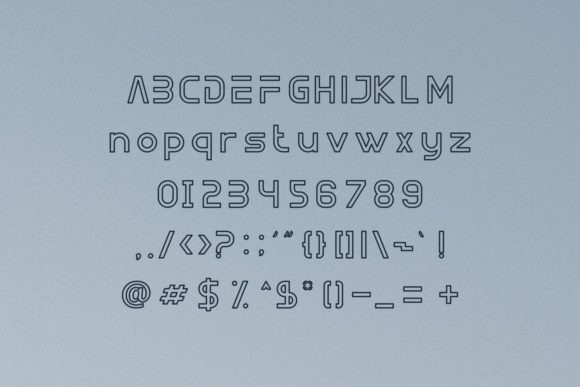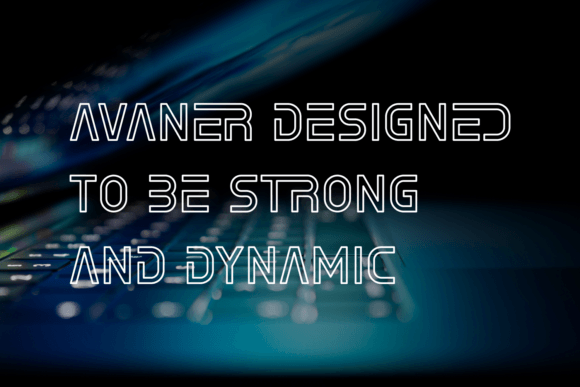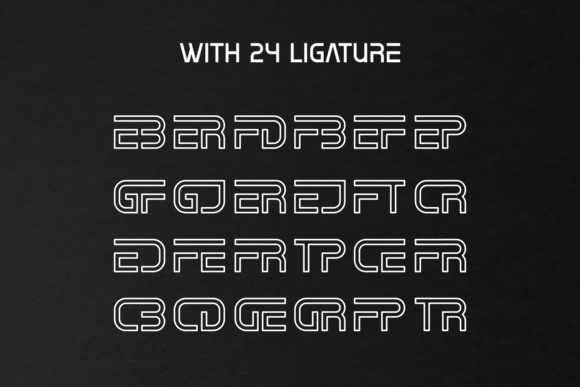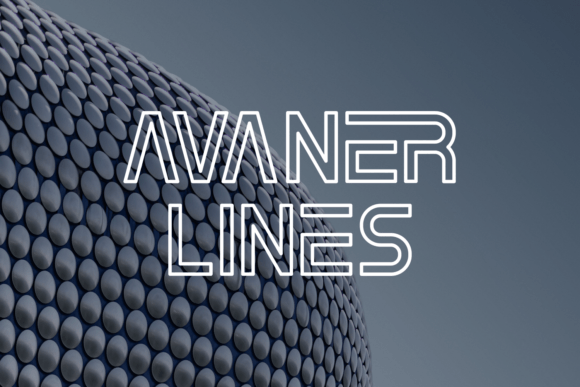
Avaner Lines Font: Elevate Your Designs with a Strong and Dynamic Display Font
In the world of typography, fonts play a crucial role in conveying messages, expressing emotions, and creating visual identities. For designers and crafters, having access to a diverse library of high-quality fonts is essential to bring their creative visions to life. One such font that has been making waves in the design community is Avaner Lines, a strong and dynamic display font that has the potential to elevate any creation.
What is Avaner Lines Font?
Avaner Lines is a modern, sans-serif display font designed to make a statement. Its unique blend of geometric shapes and bold lines creates a striking visual effect that grabs attention. The font’s clean and minimalist aesthetic makes it versatile and suitable for a wide range of applications, from branding and advertising to packaging and digital media.
Key Features of Avaner Lines Font
- Strong and Dynamic: Avaner Lines is a font that exudes confidence and energy. Its bold lines and geometric shapes create a sense of movement and dynamism, making it perfect for headlines, titles, and promotional materials.
- Versatile: The font’s clean and minimalist design makes it easy to pair with other fonts, allowing designers to create harmonious and visually appealing combinations.
- Legible: Despite its bold and dynamic nature, Avaner Lines remains highly legible, even at smaller sizes, making it suitable for use in a variety of contexts.
- Editable: As a digital font, Avaner Lines can be easily edited and customized to suit specific design needs, allowing for endless creative possibilities.
How to Use Avaner Lines Font
Avaner Lines is an incredibly versatile font that can be used in a variety of design projects. Here are some ideas to get you started:
- Branding and Logo Design: Use Avaner Lines to create bold and memorable logos that make a lasting impression.
- Advertising and Marketing: The font’s dynamic and attention-grabbing nature makes it perfect for headlines, titles, and promotional materials.
- Packaging Design: Add a touch of modernity and sophistication to your packaging designs with Avaner Lines.
- Digital Media: Use the font to create engaging and visually appealing social media graphics, blog posts, and website headers.
Benefits of Using Avaner Lines Font
By incorporating Avaner Lines into your font library, you’ll enjoy a range of benefits, including:
- Increased Creative Possibilities: With Avaner Lines, you’ll have access to a versatile and dynamic font that can be used in a variety of design projects.
- Improved Brand Consistency: Use Avaner Lines across multiple design projects to create a cohesive and recognizable brand identity.
- Enhanced Visual Appeal: The font’s bold and dynamic nature will add a touch of sophistication and modernity to your designs.
Avaner Lines is a strong and dynamic display font that has the potential to elevate any creation. Its unique blend of geometric shapes and bold lines creates a striking visual effect that grabs attention. With its versatility, legibility, and editability, Avaner Lines is an excellent addition to any designer’s font library. Whether you’re working on branding, advertising, packaging, or digital media projects, Avaner Lines is sure to make a lasting impression.